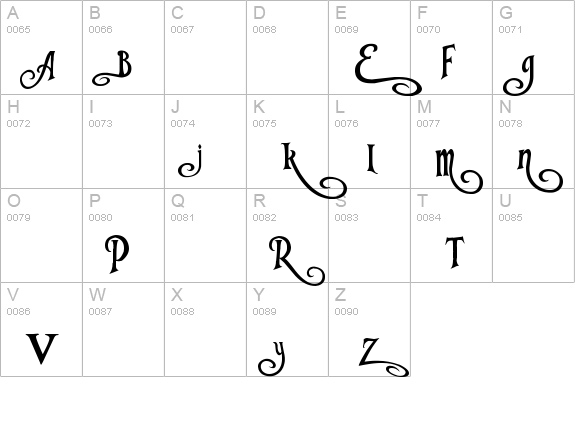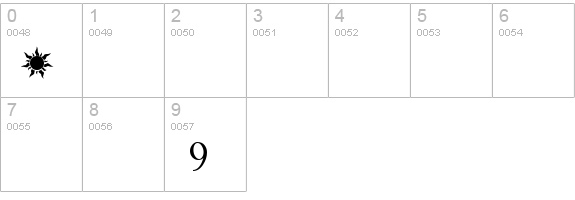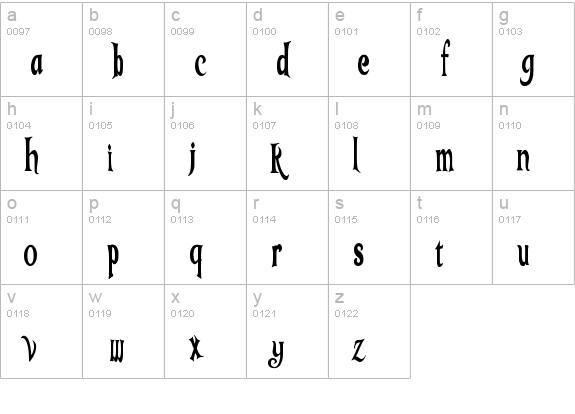
Introducing the enchanting Tangled font, a mesmerizing typeface that effortlessly weaves elegance and whimsy together. With its intricate and delicately intertwined letterforms, Tangled captures the essence of fairy tales and magical worlds, inviting you to embark on a whimsical journey with every letter you type. This captivating font is meticulously designed to resemble the intertwining strands of hair, inspired by the iconic long locks of a certain beloved princess. Every curve and flourish in Tangled exudes a sense of grace and charm, making it the perfect choice for projects that require a touch of magic and wonder. Tangled is not only visually stunning, but also highly versatile. Whether you're designing invitations for a fairytale-themed wedding, creating eye-catching logos for a children's book, or adding a touch of whimsy to your personal blog, this font will effortlessly elevate your designs and captivate your audience. And the best part? Tangled is completely free and readily available for download at FontsMarket.com. This means that you can unleash your creativity without any limitations or restrictions. Whether you're a professional designer or an aspiring artist, Tangled provides you with the freedom to explore and create without breaking the bank. So why wait? Let Tangled font be your gateway to a world of enchantment and creativity. Download it now from FontsMarket.com and let your imagination run wild!